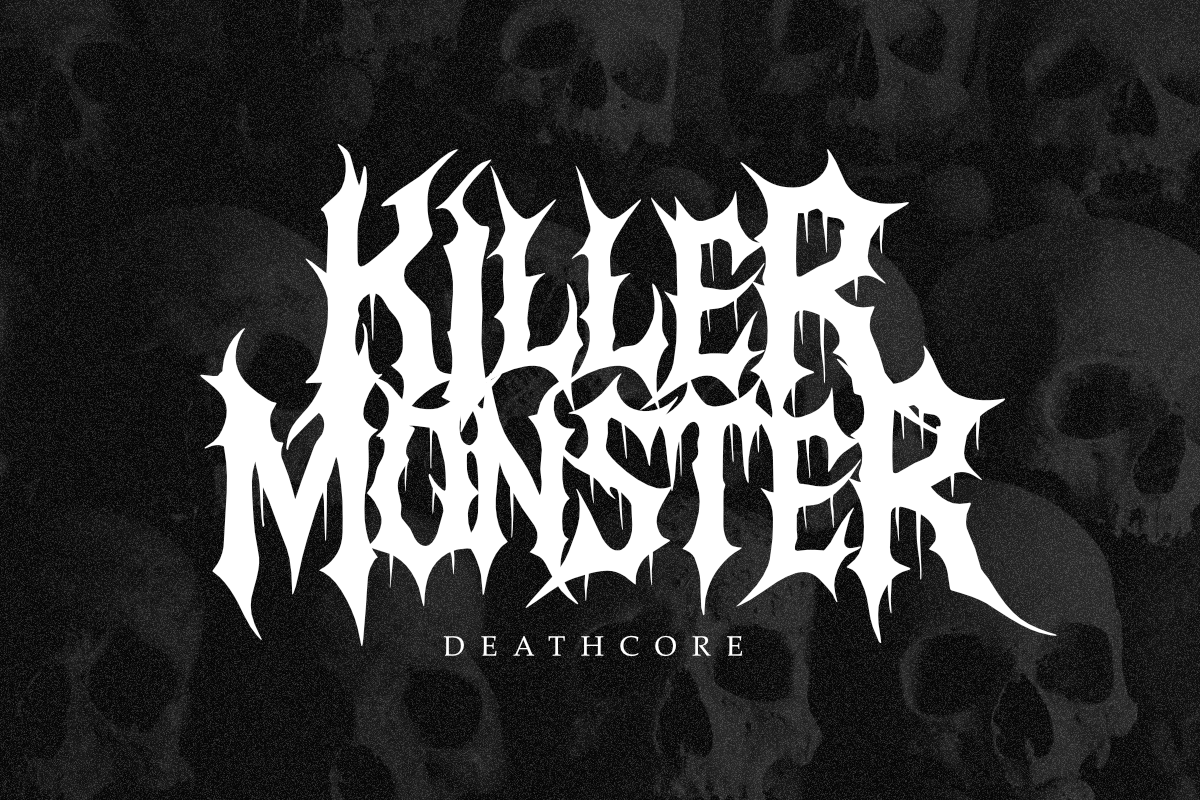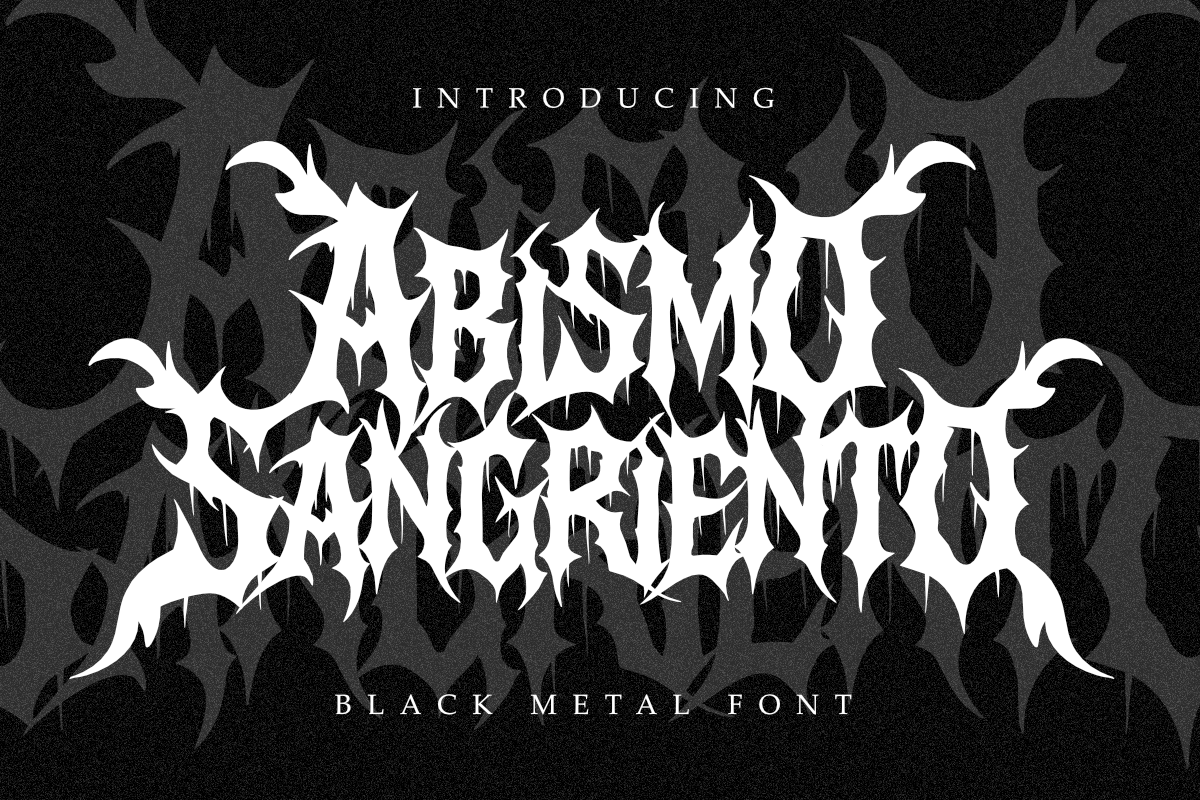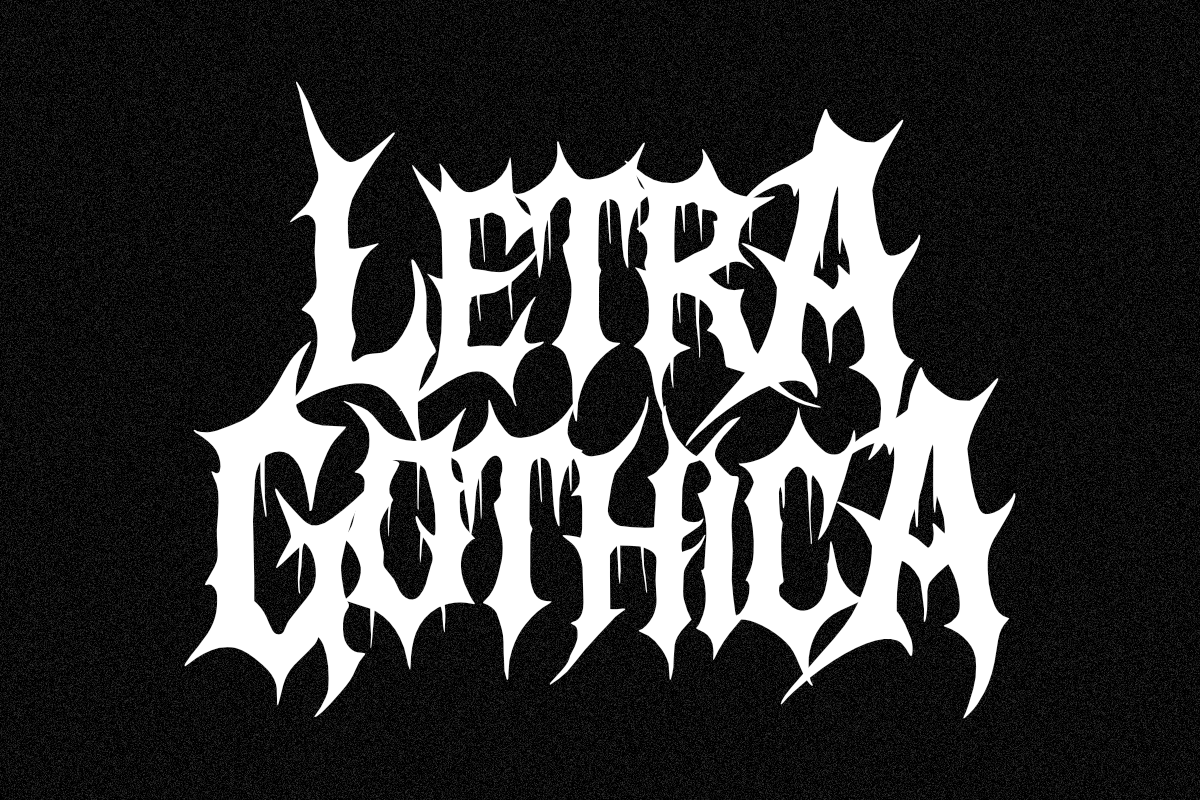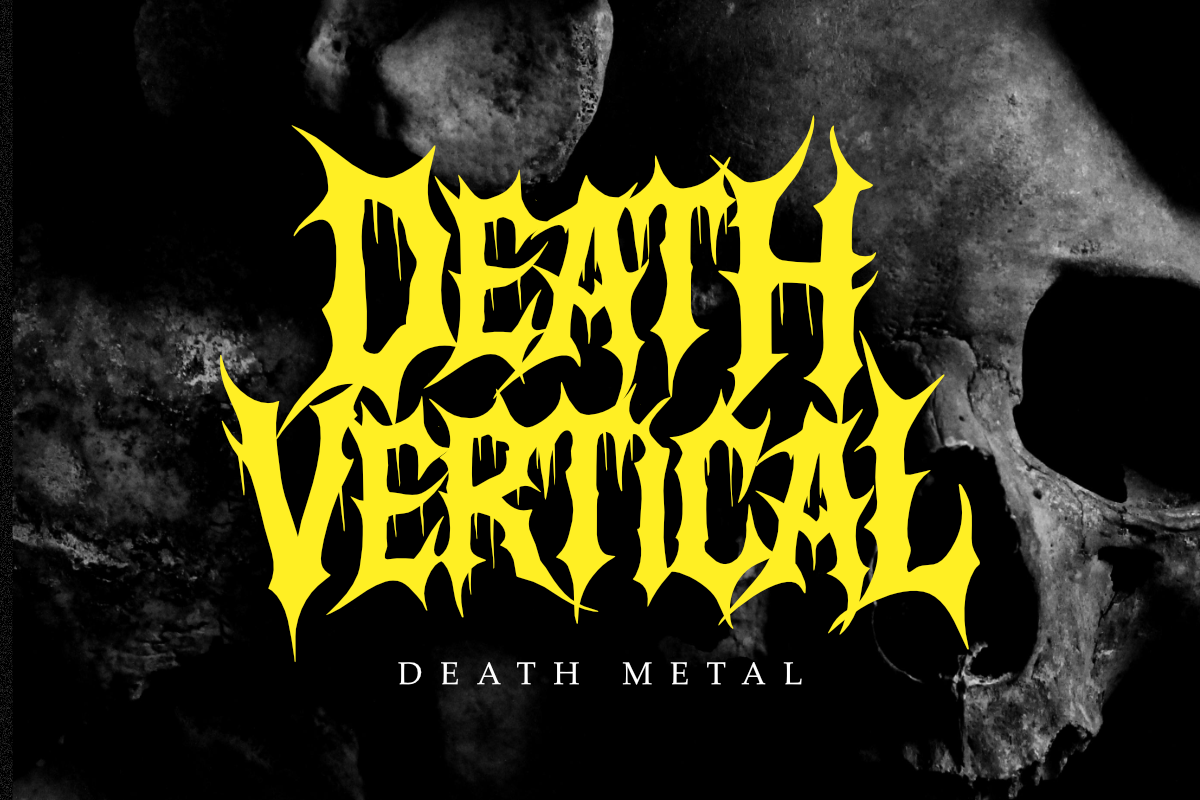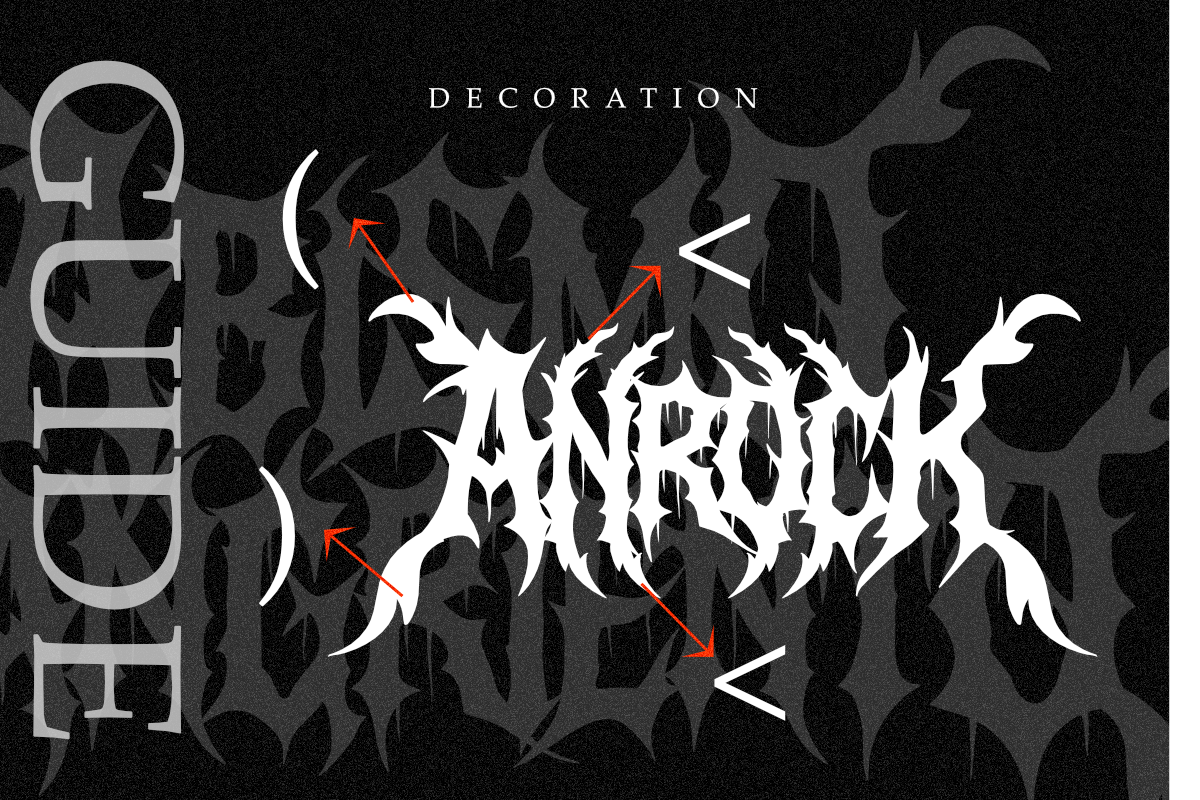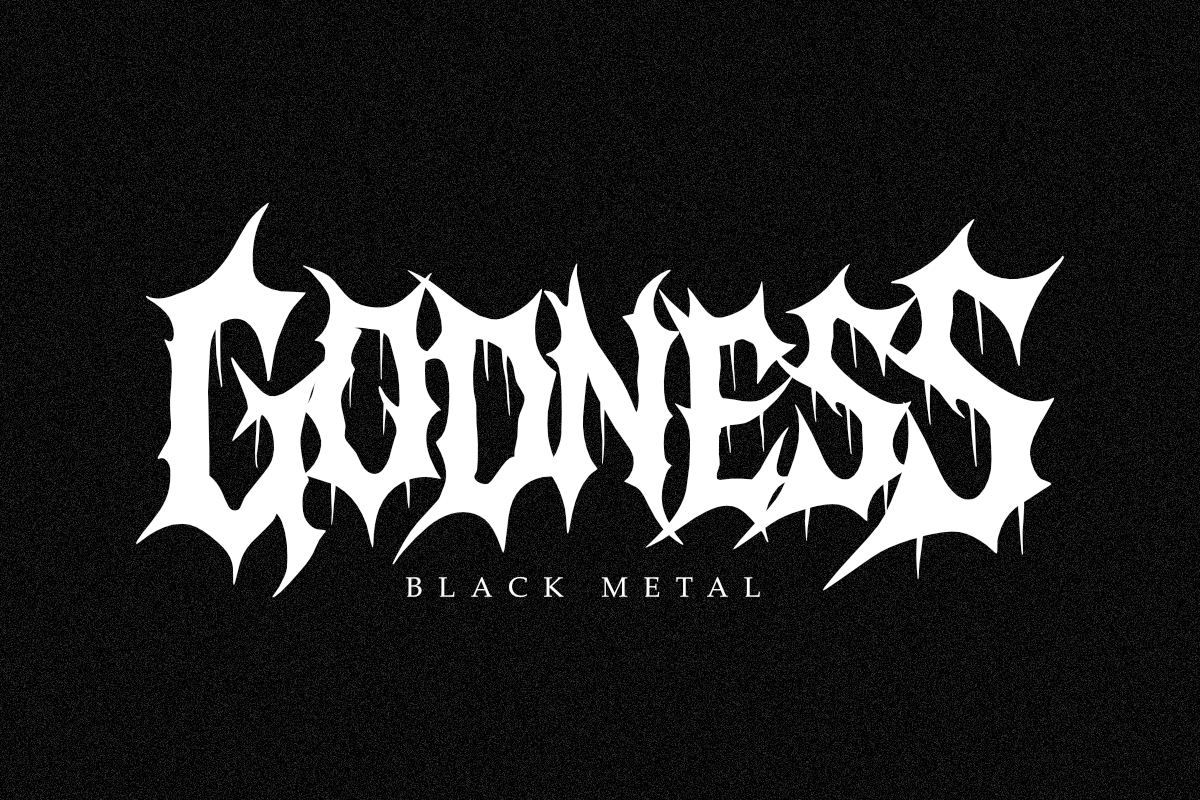
Abismo Sangriento - Black Metal Font
Abismo Sangriento is a brutal and highly detailed black metal font designed for those who crave extreme, aggressive, and chaotic visuals. With sharp thorns, twisted strokes, and an unholy aesthetic, this typeface is perfect for death metal logos, underground music posters, album covers, and horror-themed designs.
Inspired by extreme metal band logotypes, this display font creates an authentic atmosphere of raw power and darkness. Whether you’re designing merchandise, apparel, gig posters, or dark branding, Abismo Sangriento will deliver a haunting impact.